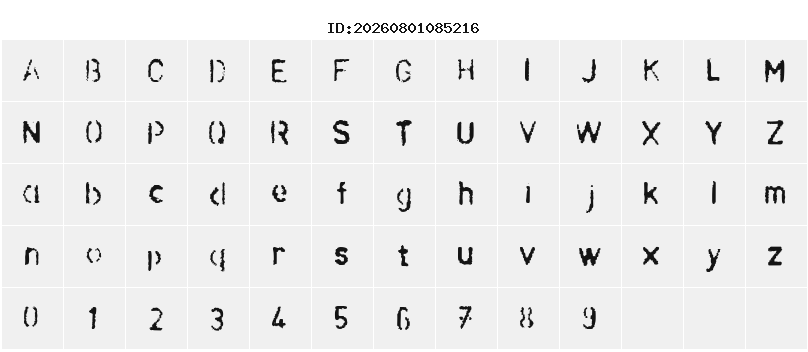
LLPochoir Preview
• Font Name: LLPochoir
• Full Font Name: LLPochoir
• PostScript Name: LLPochoir
About LLPochoir.ttf
LLPochoir.ttf is a modern, elegant sans-serif font designed for ultimate readability and visual harmony. Perfect for branding, headlines, web design, and print materials.